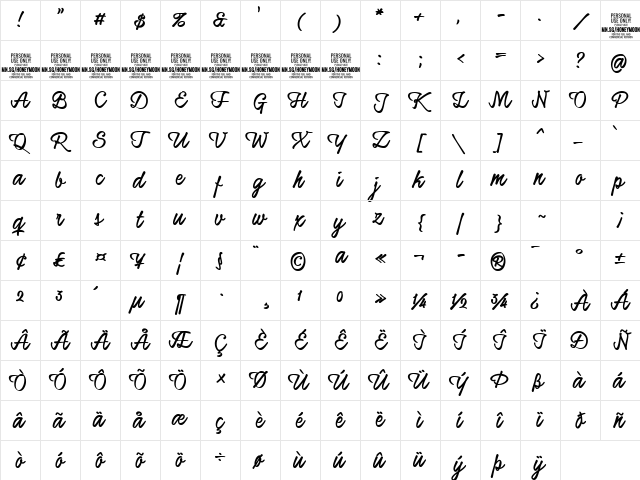
Complete Honeymoon Up Bold PERSONAL USE Regular glyph index. Displaying only characters natively supported by Honeymoon Up Bold PERSONAL USE Regular font.
Honeymoon Up Bold PERSONAL USE is a composed and adaptable typeface that performs quietly and consistently across a wide range of design contexts. Its bold stroke weight gives it real presence on the page.
Who designed the Honeymoon Up Bold PERSONAL USE Regular font?
This font was published by M Greb. Check the technical specs section for copyright and designer details.